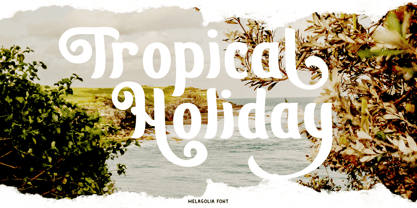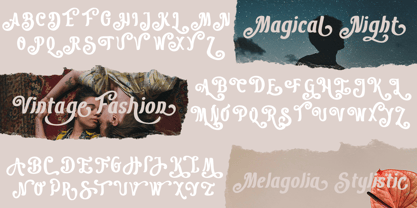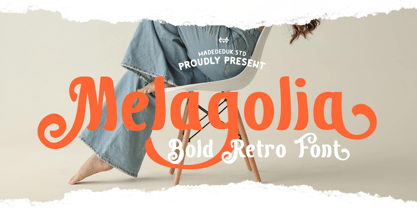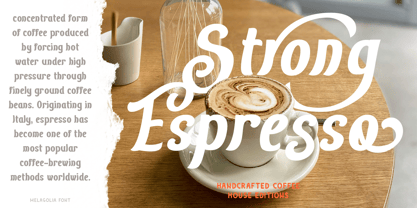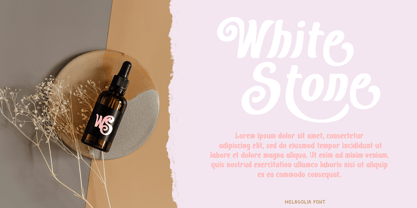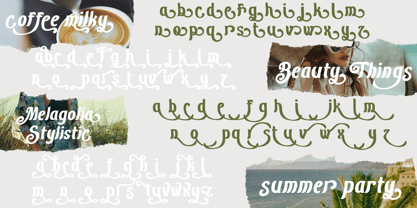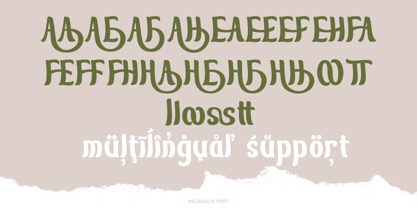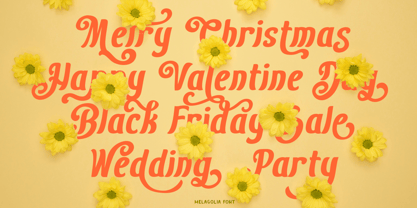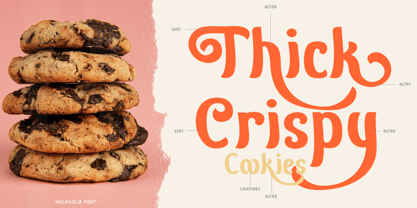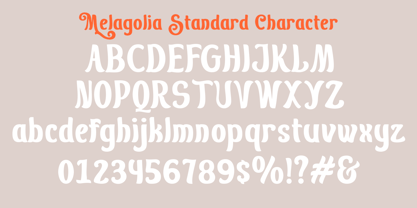
Melagolia
by madeDeduk
The Melagolia Font Family was designed by madededuk and published by madeDeduk. Melagolia contains 2 styles and family package options. More about this family
Melagolia is a retro script font. Comes with curly style with much alternative and ligature. This font perfect for poster design, book covers, merchandise, fashion brands, advertising, magazines, album covers, wedding invitation and more.